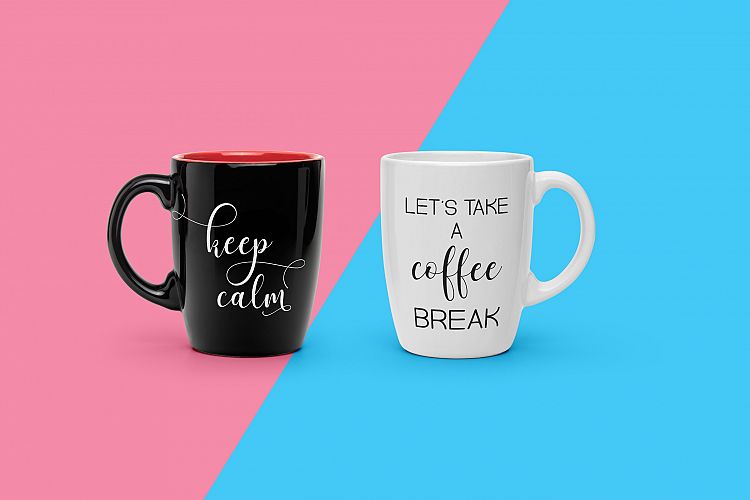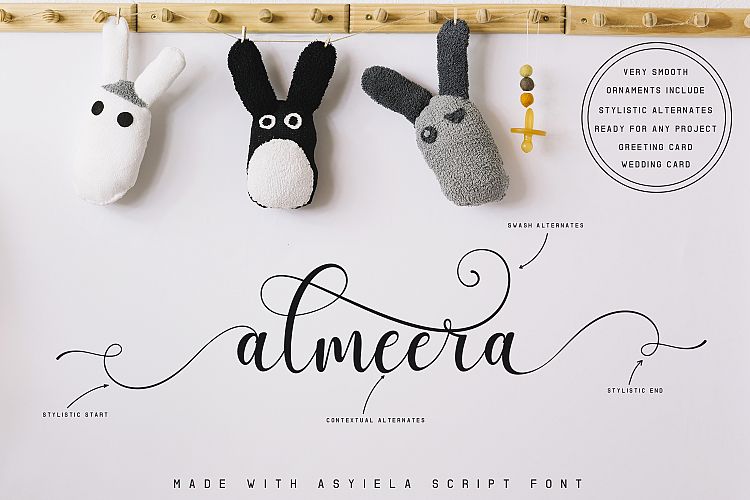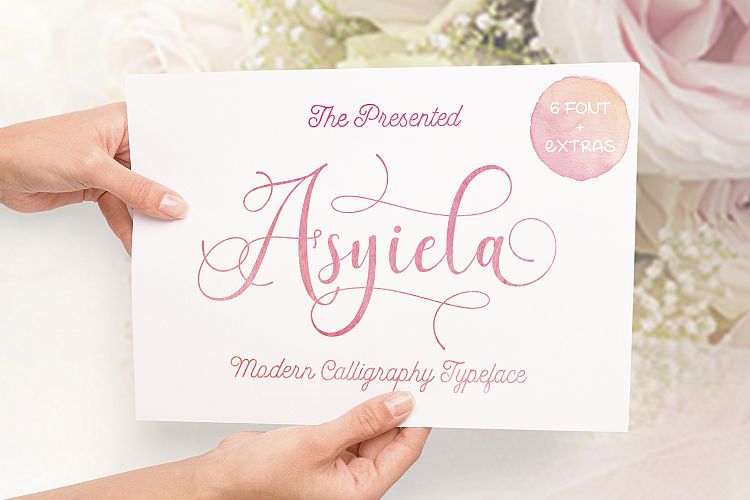
Asyiela Script
Asyiela Script Font
Asyiela font Script made with love, this font is very good for weddings, birthdays, cosmetic products, fashion, and other designs you want. Asyiela fonts